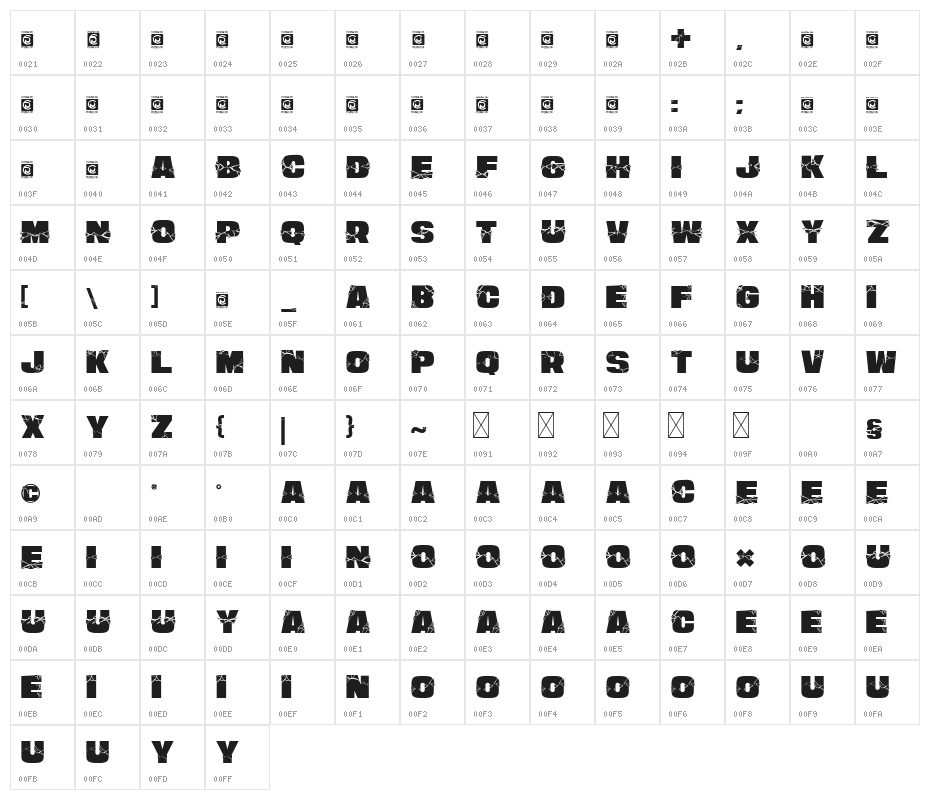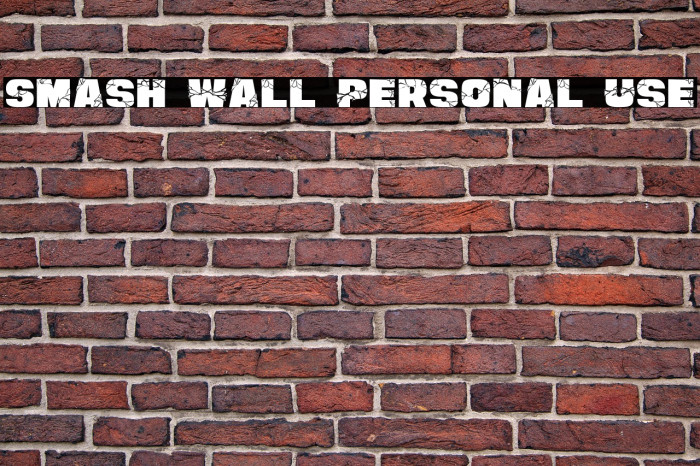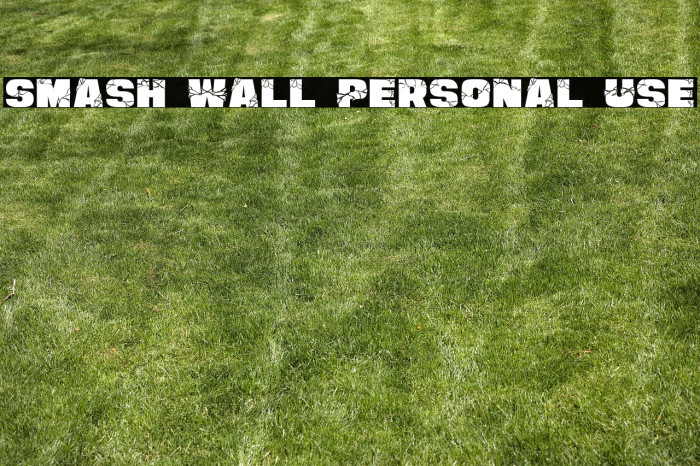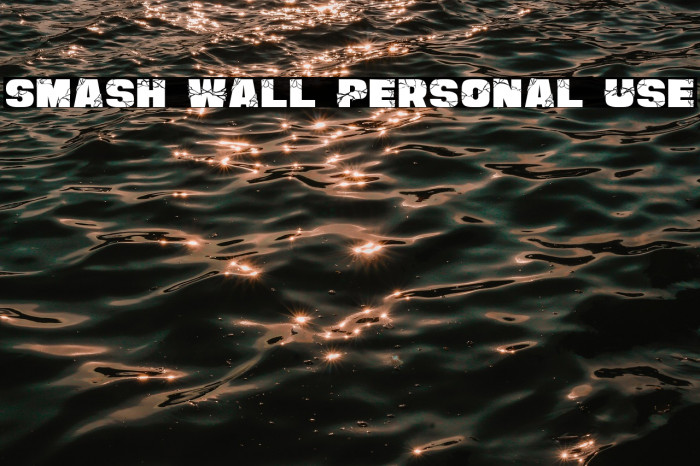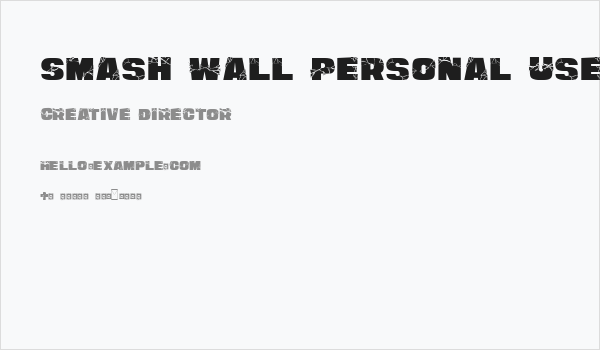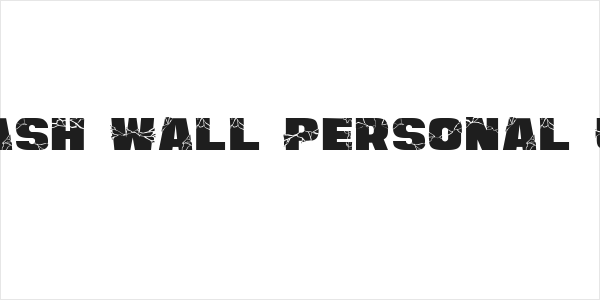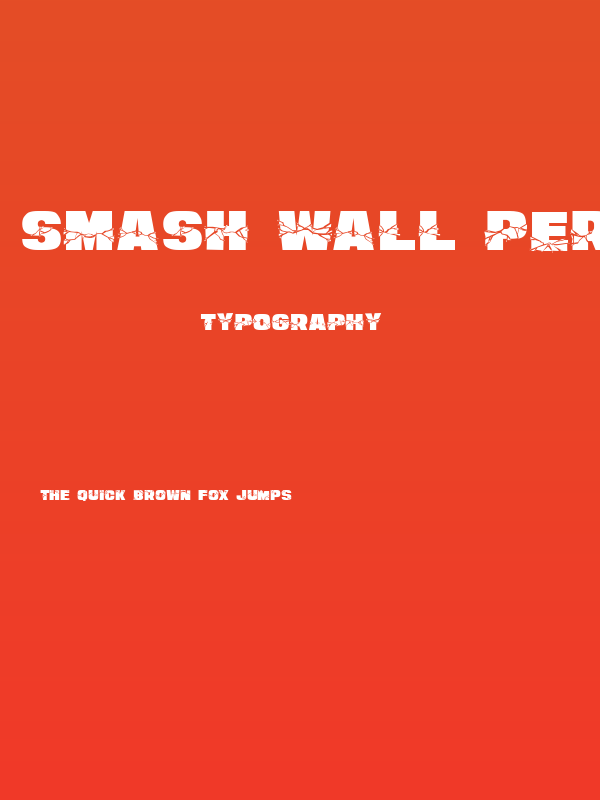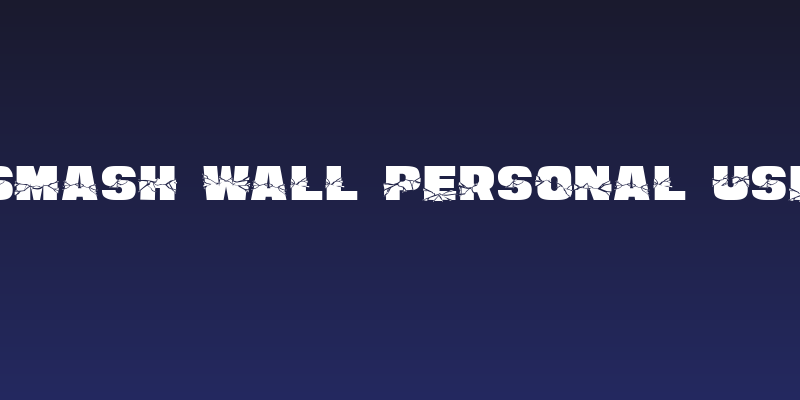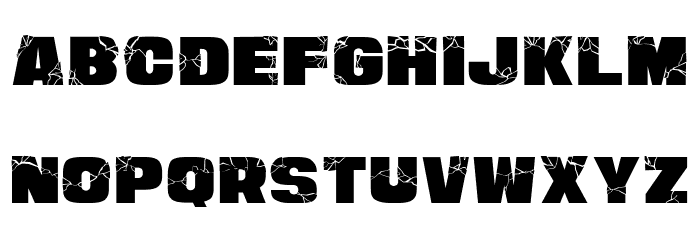
Smash Wall Personal Use Font
Smash Wall Personal Use Description
This font features a bold and impactful design with a distressed, shattered effect running through each character. The uppercase letters are blocky and wide, creating a strong visual presence. The distressed elements give it a rugged, edgy feel, making it ideal for projects that require a bold statement. The font's unique style is reminiscent of cracked surfaces or broken glass, adding a dynamic and energetic touch to any design. It is well-suited for creative and artistic projects where a dramatic and unconventional look is desired.
| Overall Style | Modern, Edgy |
| Proposed Projects | Ideal for posters, album covers, video game graphics, and urban-themed designs. |